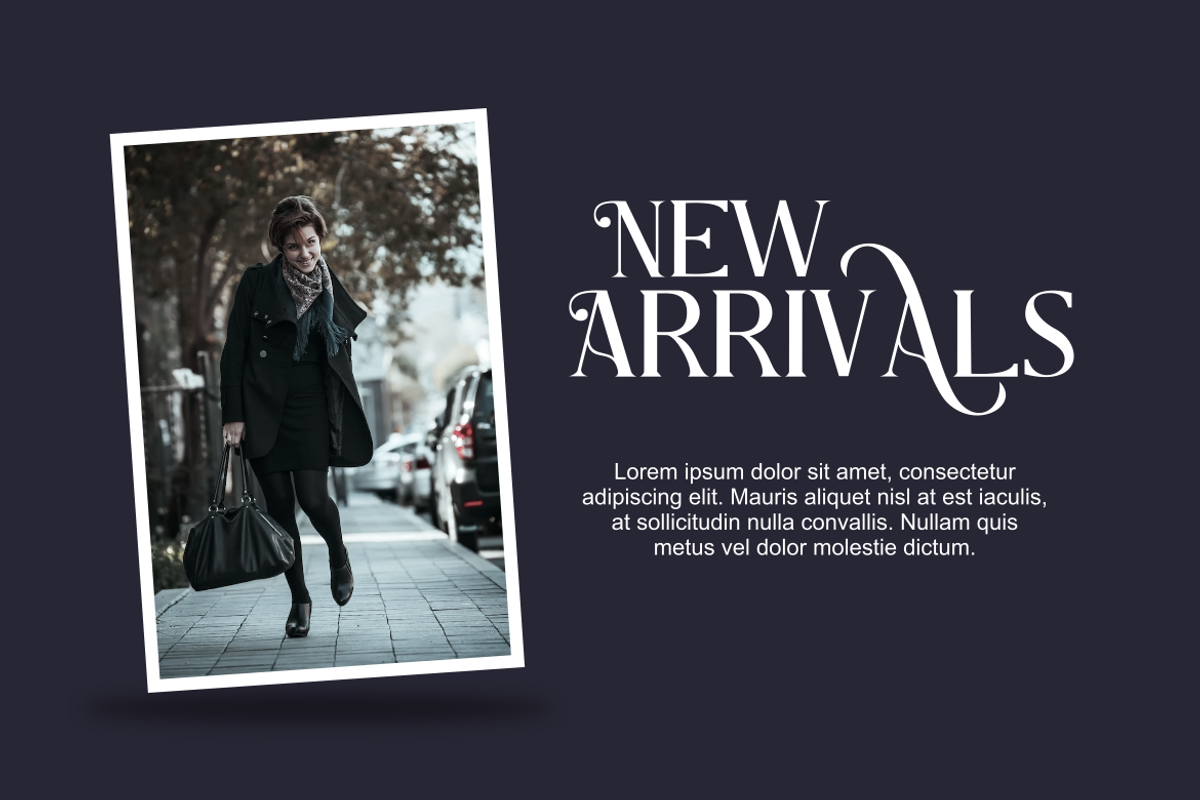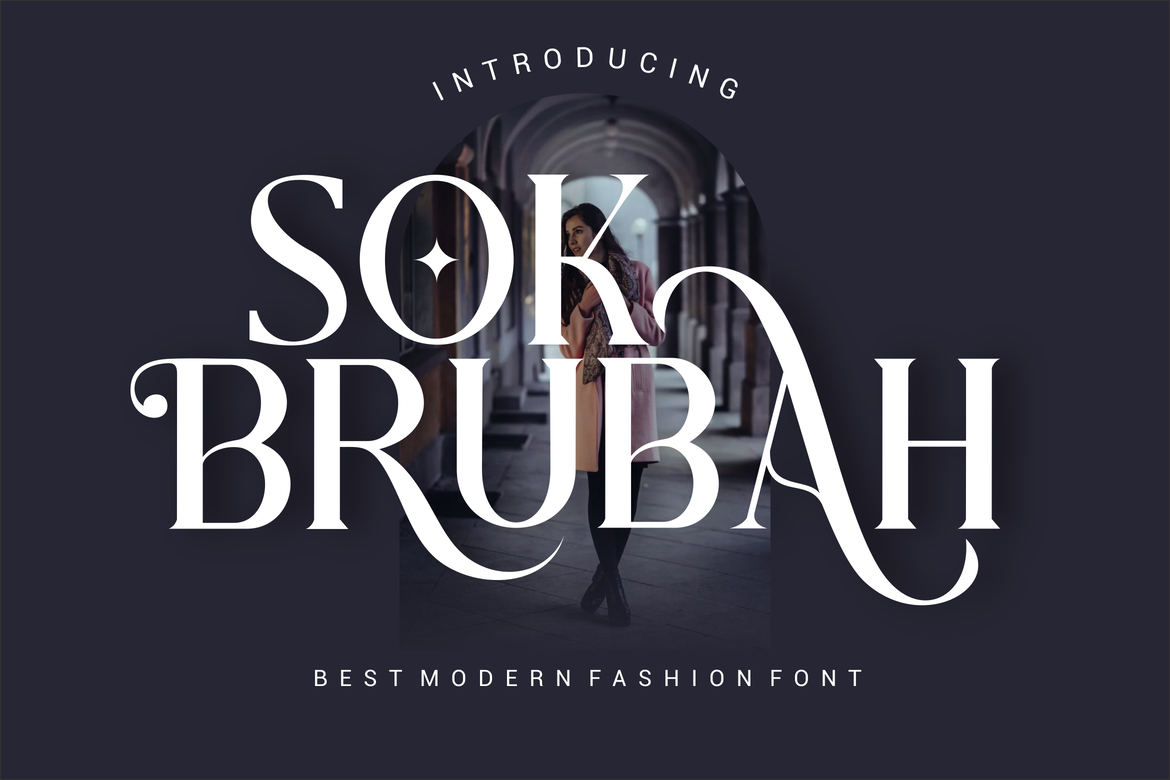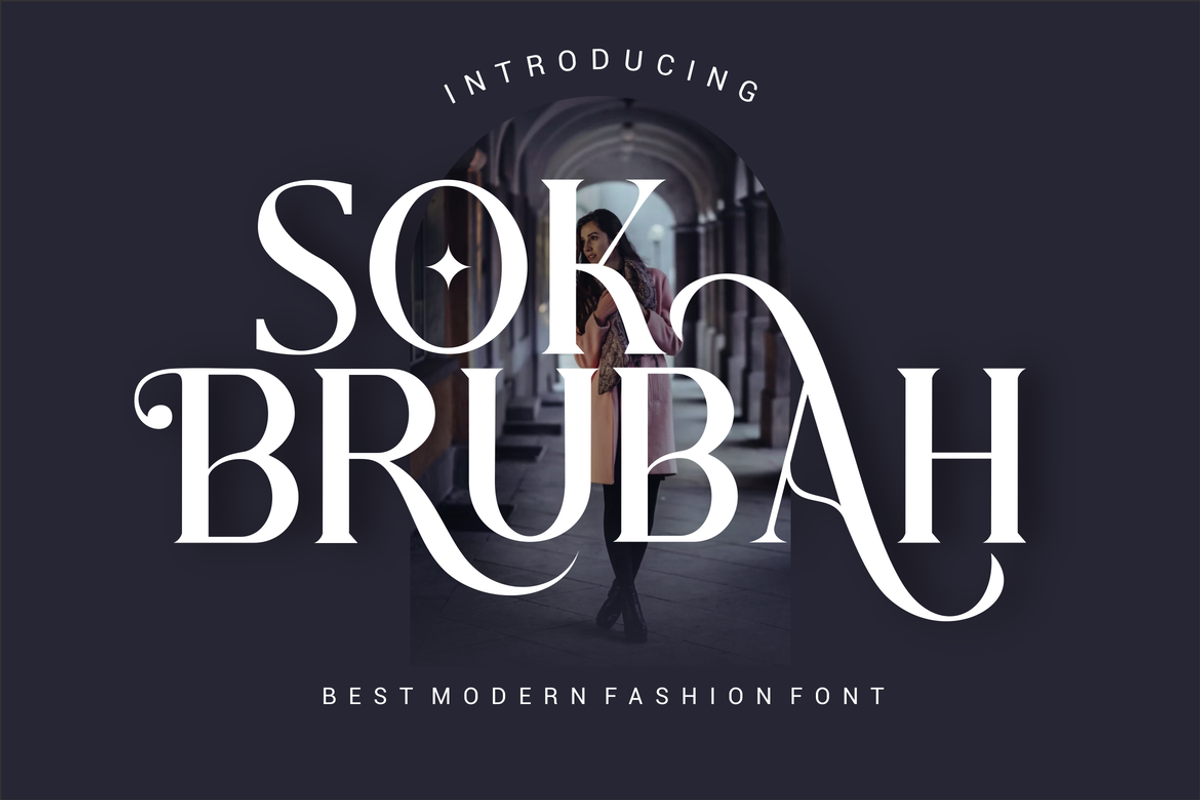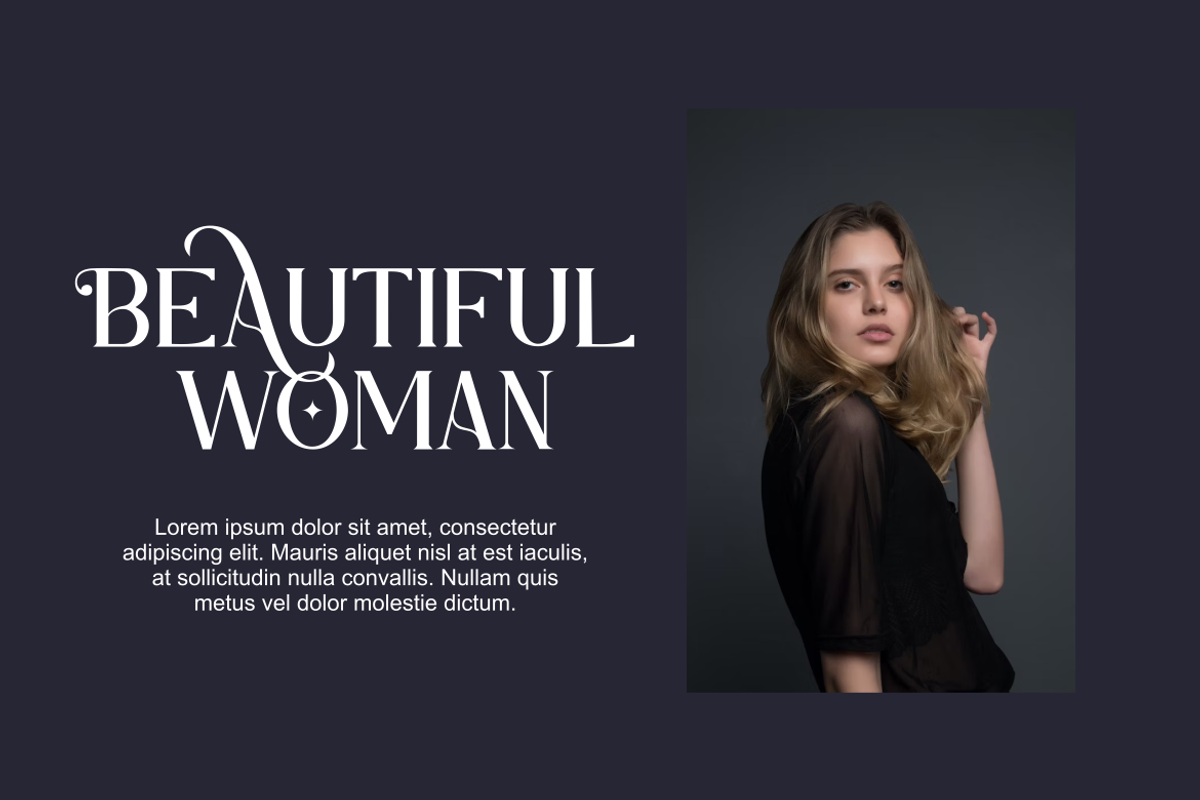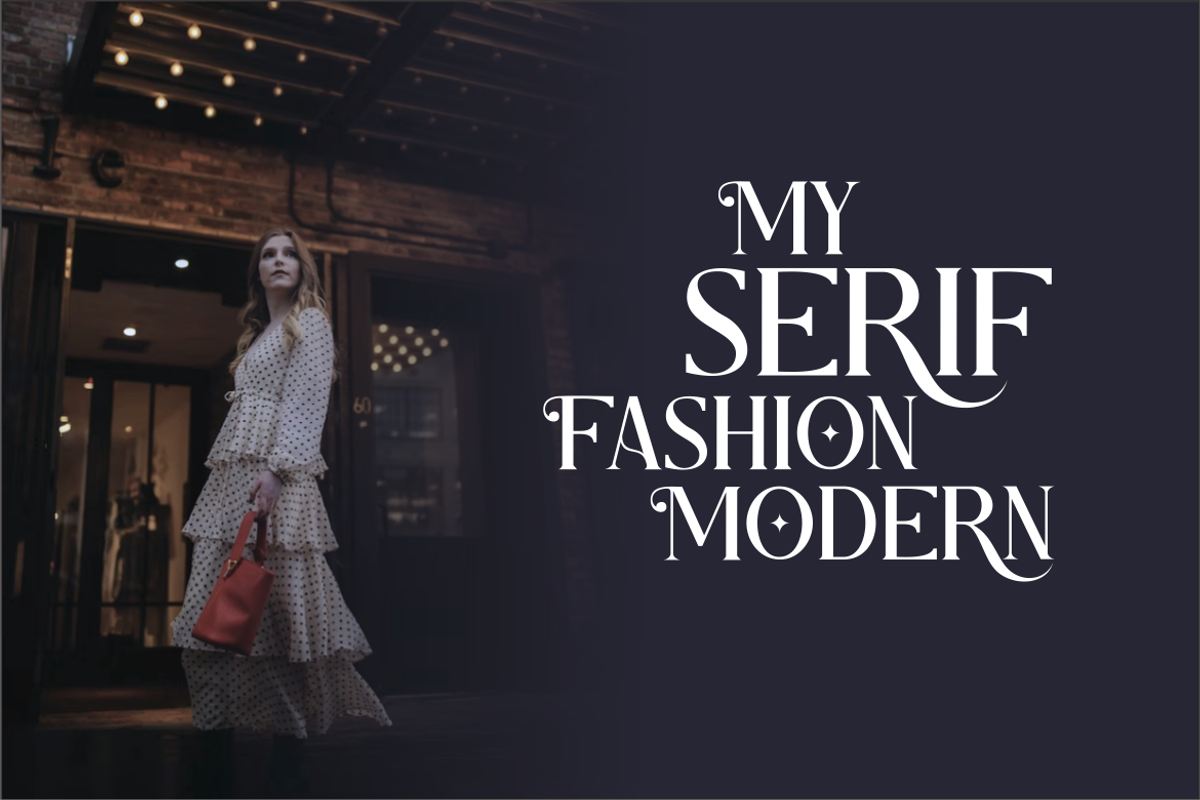
Sok Brubah Font
Presenting our new product Sok Brubah Font - Modern Serif Font is a bold and authentic display font. This font is perfect for any branding project such as logos, t-shirt printing, creative products, and more. extraordinary in a variety of contexts.